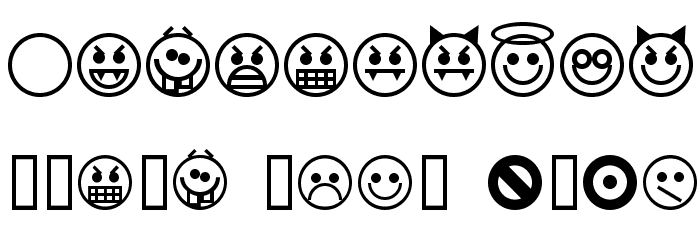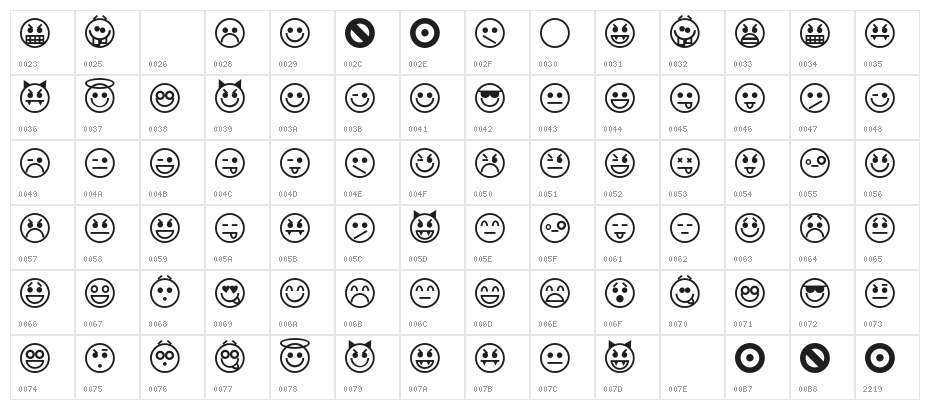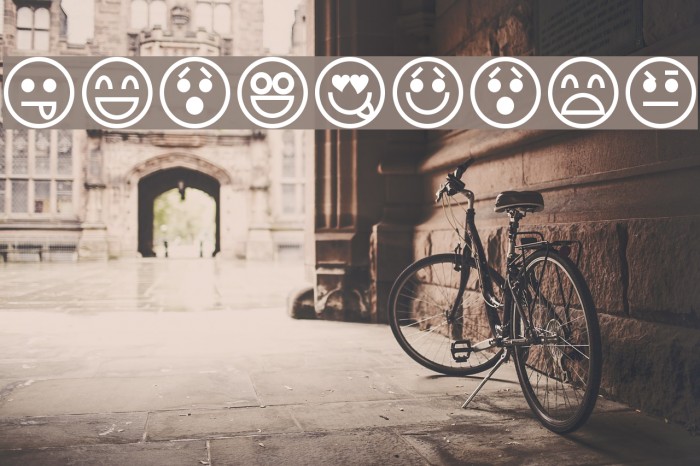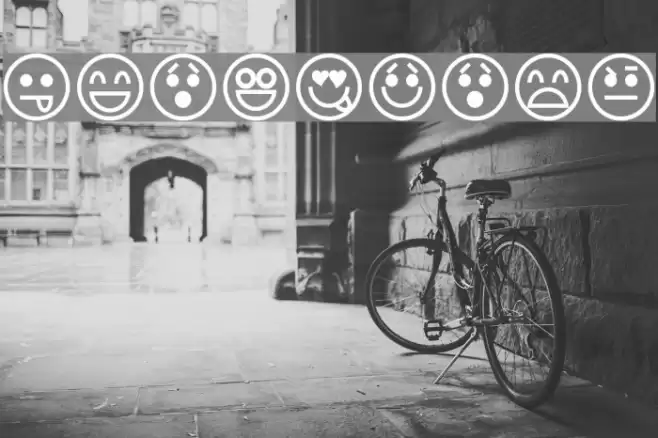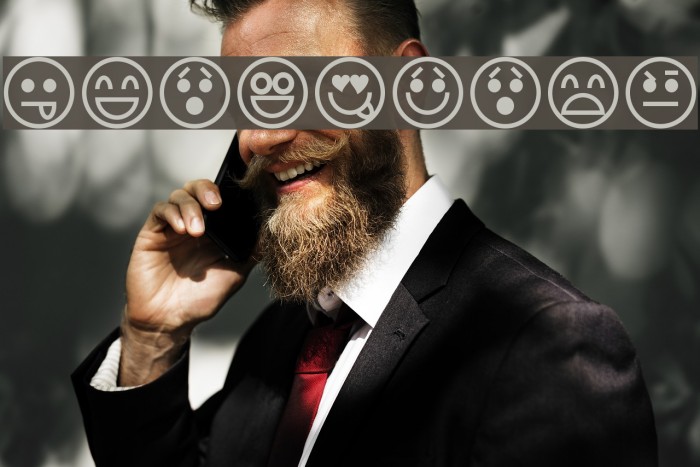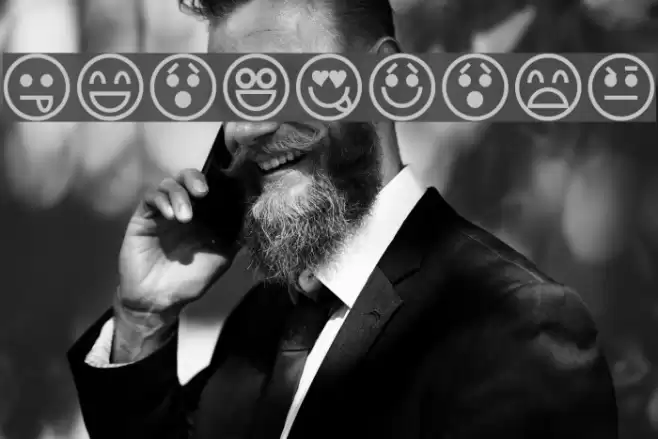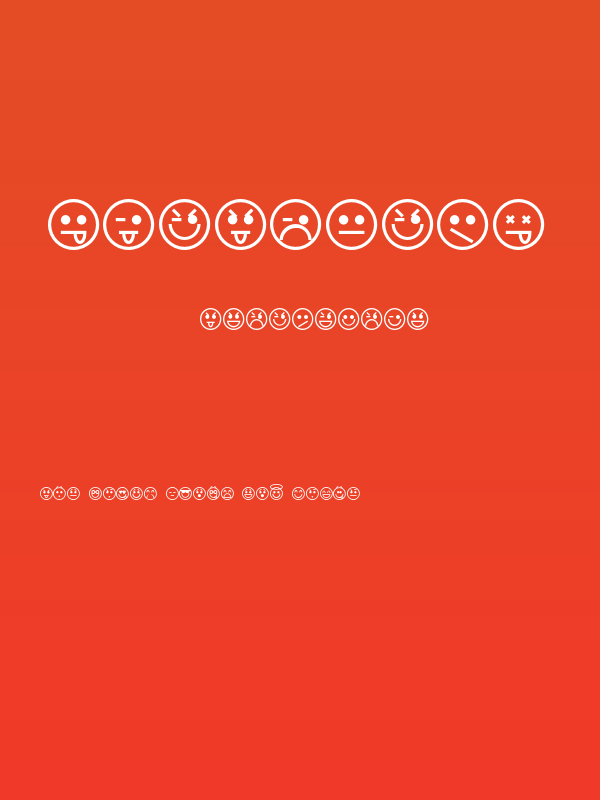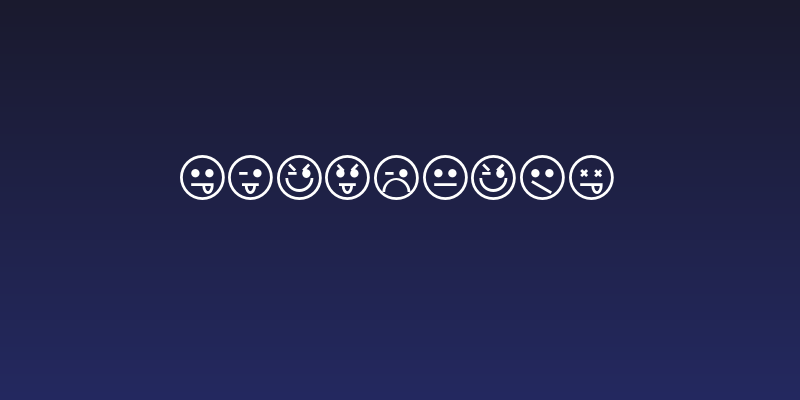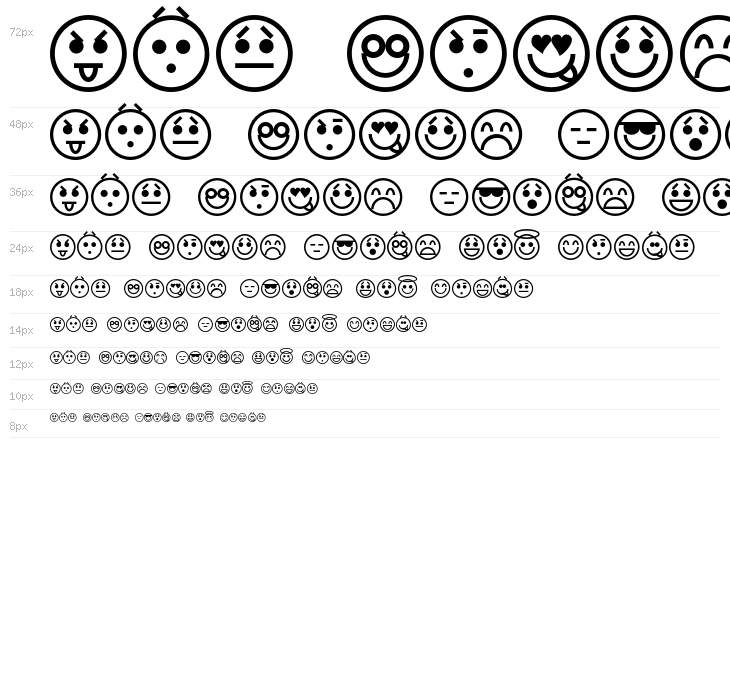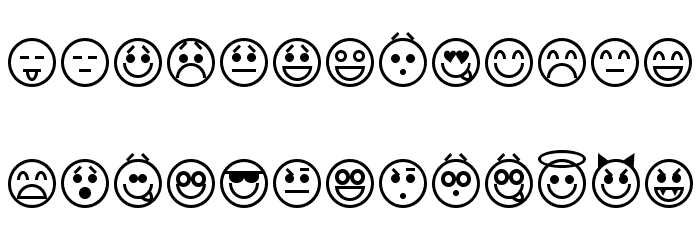
Emoticons Font
Emoticons Description
A playful, decorative typeface composed entirely of various emoticon faces and symbols, each character represented by a unique circular face with expressive features. The design is bold, with thick, even strokes and simple, geometric shapes, emphasizing clarity and emotional variety.
| Overall Style | Playful, Decorative, Modern |
| Use Case | Logos, Headlines, Posters, Social media graphics |
| Proposed Projects | Children's books, posters, party invitations, educational materials, playful branding, digital stickers. |